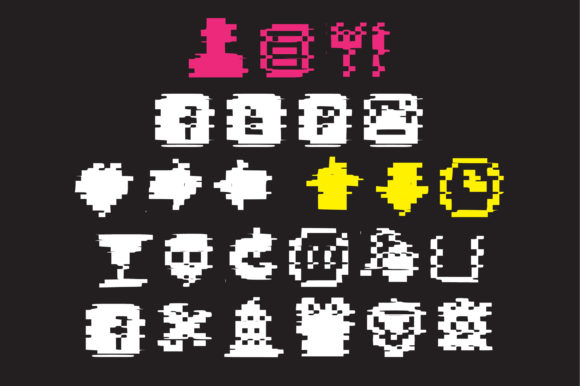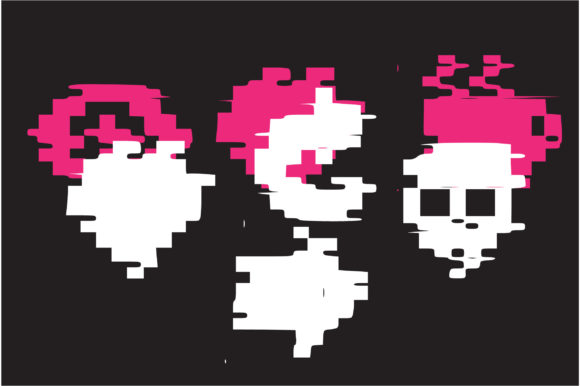
The Ultimate Design Hack: Big Glitch Icon Font
I’ll never forget the time I was working on a project for a trendy client, and I was tasked with creating a unique visual identity that would make their brand stand out. As I scrolled through font after font, I just couldn’t find the right fit. That was until I stumbled upon the Big Glitch Icon font. This cool, pixelated dingbats font has been a game-changer for my designs, and I’m excited to share its awesomeness with you! 😊
What is Big Glitch Icon Font?
Big Glitch Icon is a uniquely shaped, pixelated dingbats font that’s perfect for adding a distorted and trendy touch to your designs. Its unusual shape and style make it an excellent choice for designers, crafters, and creative hobbyists looking to add some edge to their work.
So, what do I love about Big Glitch Icon? 🤔 Here are a few things:
• ✨ Unique and trendy design: The pixelated style of this font is super on-trend and will instantly elevate your designs.
• 💻 Versatile: Big Glitch Icon can be used for a wide range of projects, from branding and logos to social media graphics and more.
• ⚠️ Limited characters: As a dingbats font, Big Glitch Icon has a limited character set compared to traditional fonts.
One of the best things about Big Glitch Icon is its OpenType features and glyphs. With OpenType, you can access additional characters and stylistic alternates to take your designs to the next level.
The creator of Big Glitch Icon was inspired by the world of digital errors and glitches. They wanted to create a font that captured the essence of distorted digital art and made it accessible to designers and creatives.
Q: What type of font is Big Glitch Icon?
A: Big Glitch Icon is a pixelated dingbats font.
Font Name Big Glitch Icon Font